Best Lettering fonts for Logos, Posters and Social Media Graphics.
Give your text a unique look and communicate your message clearly using this collection of letter fonts. They come in all kinds of styles, from classic serifs to modern sans serifs and script fonts. Perfect for logos, posters, websites, or any graphic design project that needs a personal touch.
Black Wano
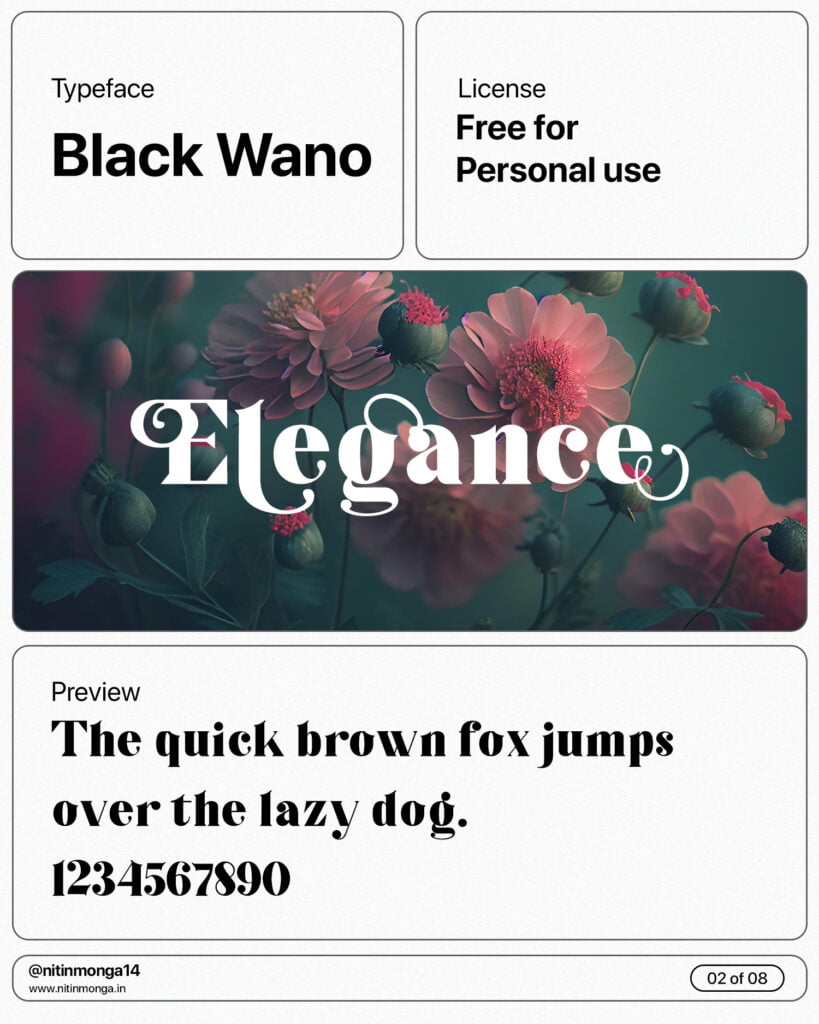
Nogifle
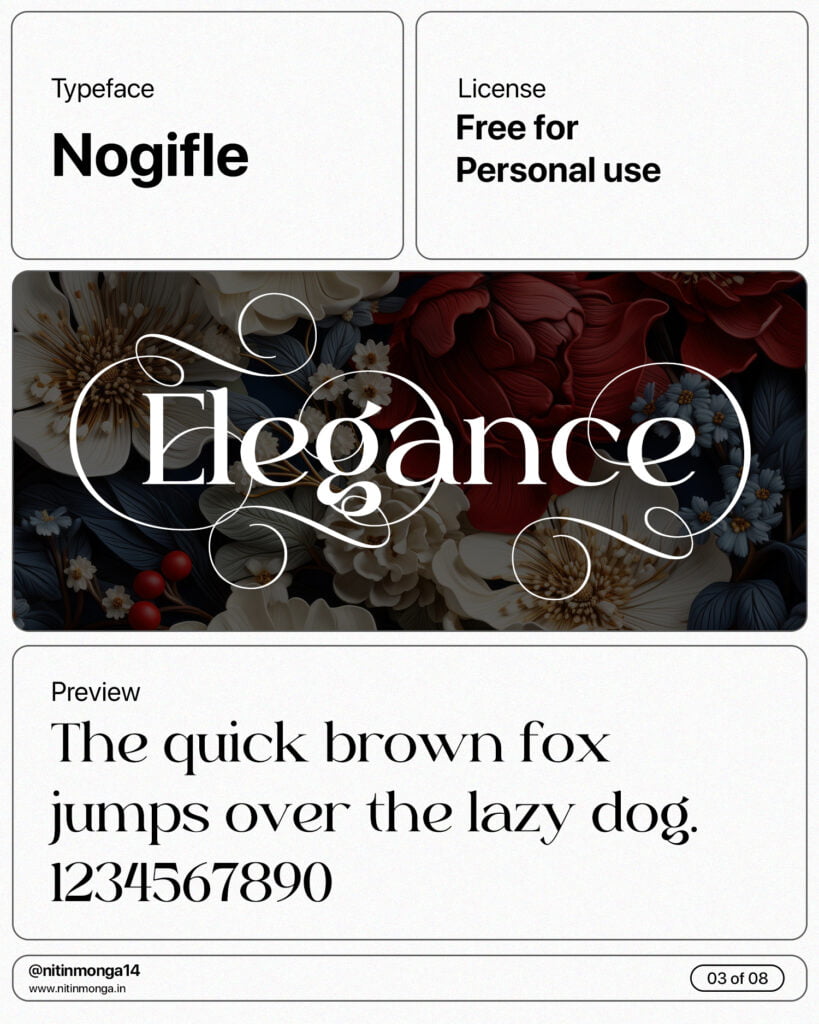
Mongkrain
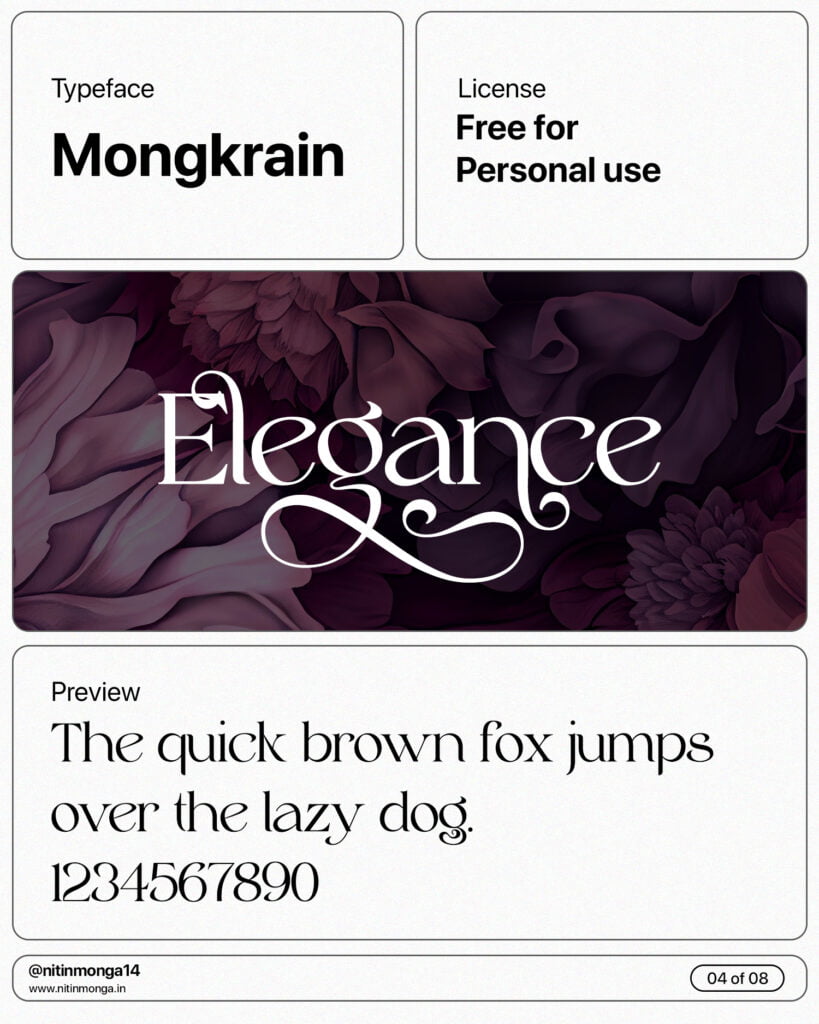
Rhinatta
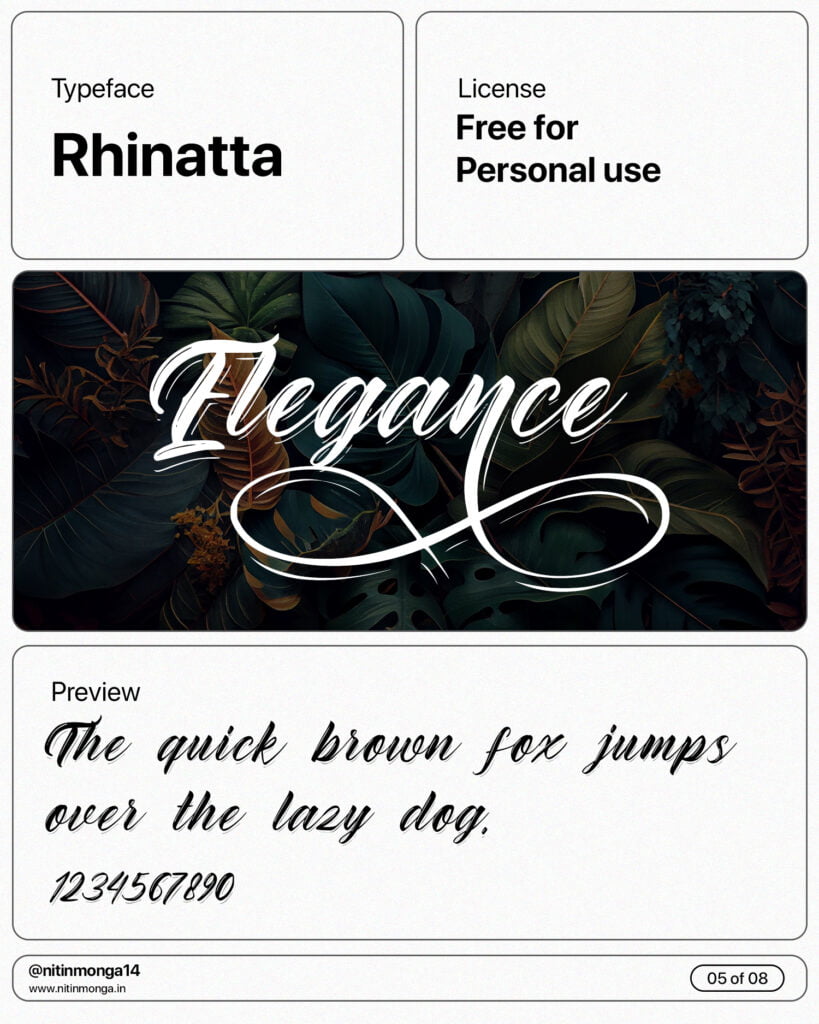
Diana Custin
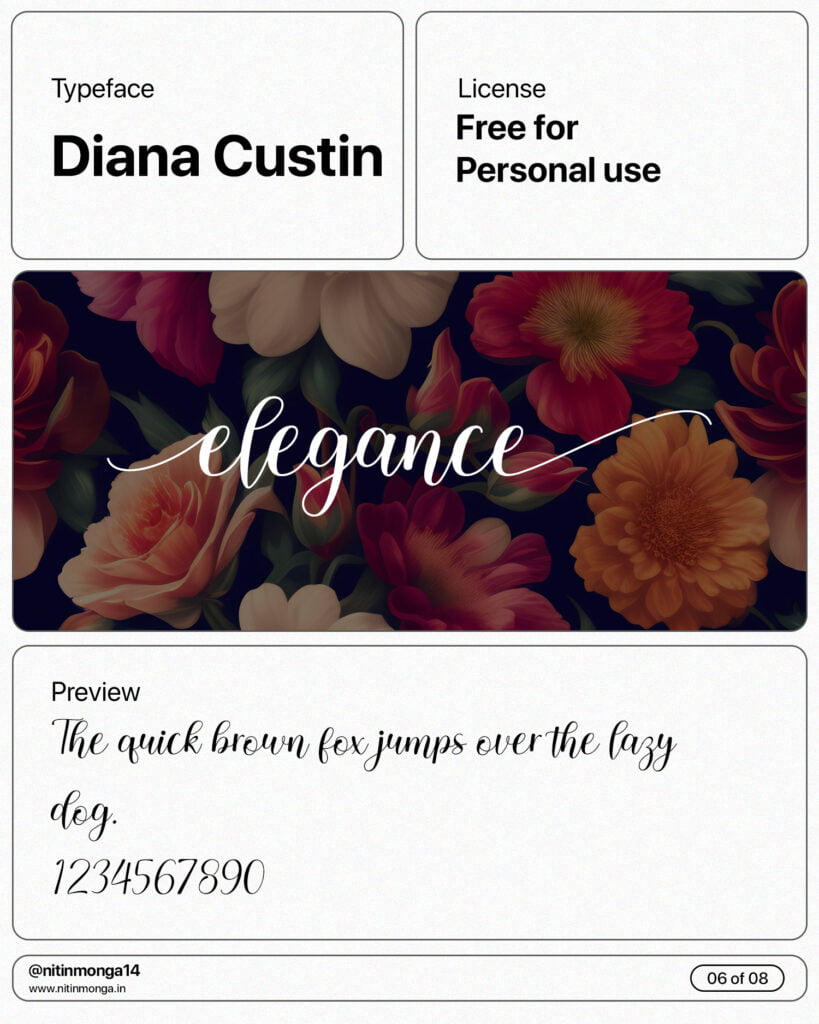
History Jasmin